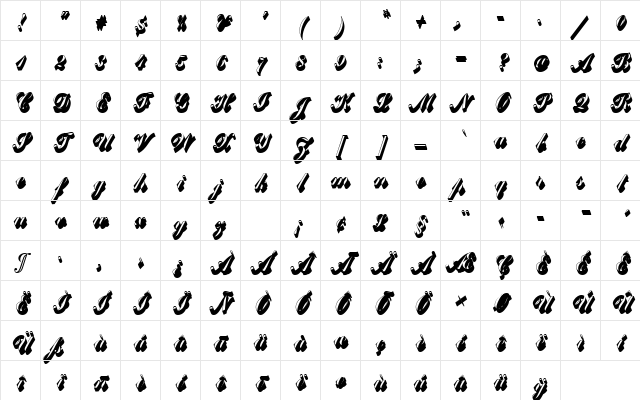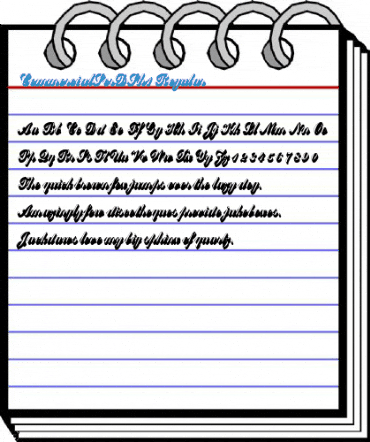
Complete CommercialScrDSh1 Regular glyph index. Displaying only characters natively supported by CommercialScrDSh1 Regular font.
CommercialScrDSh1 is a composed and adaptable typeface that performs quietly and consistently across a wide range of design contexts.